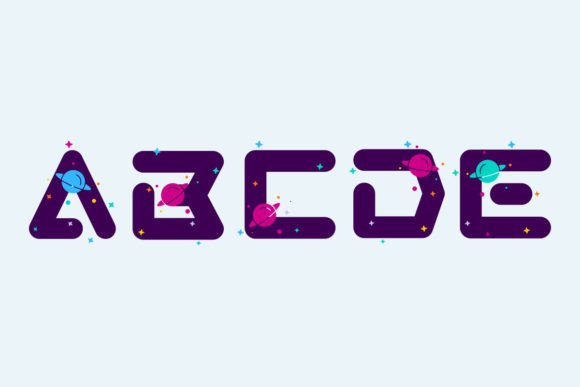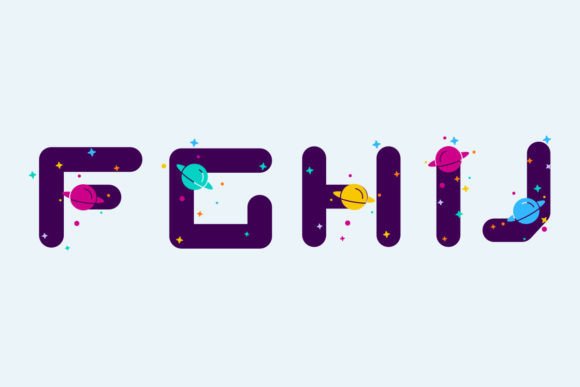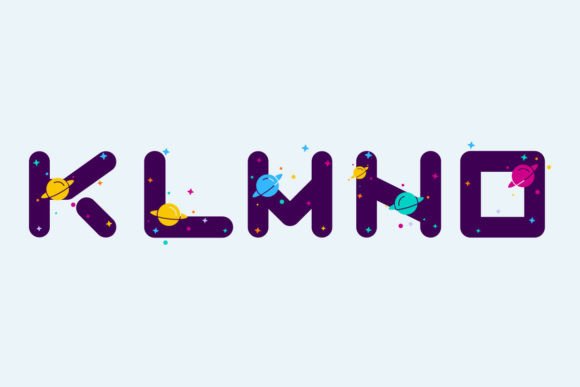
Cosmos Galaxy Font: A Playful Stencil Font for Kids & DIY Crafts
About the Cosmos Galaxy Font
Make a bold statement with Cosmos Galaxy Font, a powerful and memorable font. Cosmos Galaxy is a playful, futuristic, and vibrant stencil sans-serif color font with celestial planets and stars elements. Its simple flat design and vibrant colors are suitable for aerospace projects and crafts. This fun color font will make your work look fun yet futuristic, and it can easily be applied to t-shirts, cards, posters, and even for crafting ideas for kids or school projects.
Cosmos Galaxy excels in headline applications, short impactful statements, and playful branding projects where a futuristic, vibrant aesthetic is desired. It’s ideal for posters, packaging for children’s products, and social media graphics. However, its highly decorative nature makes it unsuitable for body text or user interface (UI) elements where readability is paramount. Extended use could quickly become visually overwhelming.
For optimal pairing, consider a clean sans-serif like Open Sans or Lato for body copy to provide contrast and enhance readability. If a more sophisticated feel is needed, a classic serif font such as Garamond or Playfair Display could create a balanced juxtaposition of playful and elegant elements.
The font’s core personality is energetic and playful, conveying a sense of fun and modern innovation. Its bold character suits brands targeting a youthful, dynamic audience interested in space exploration, technology, or science fiction themes.